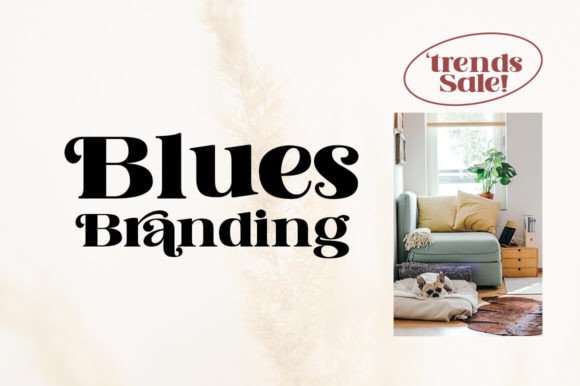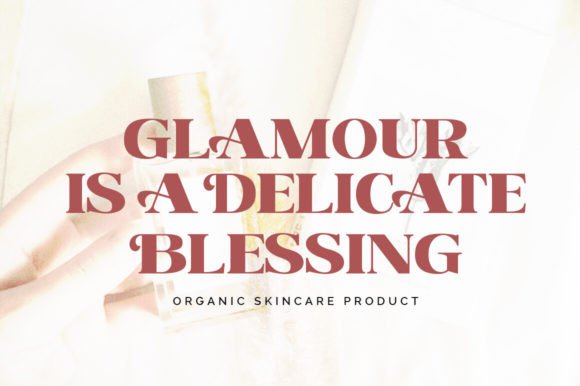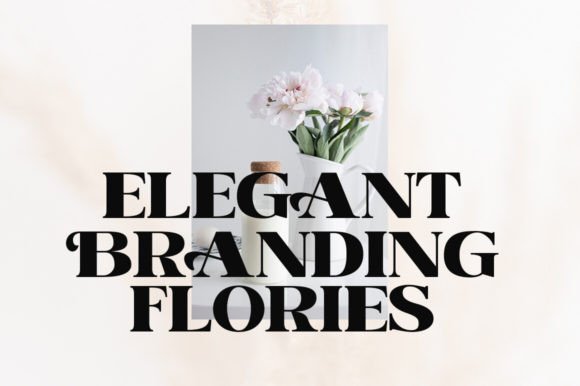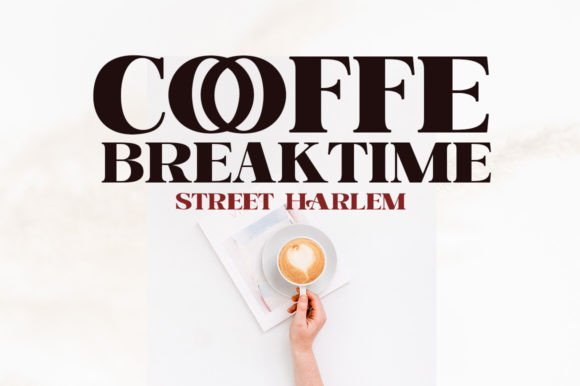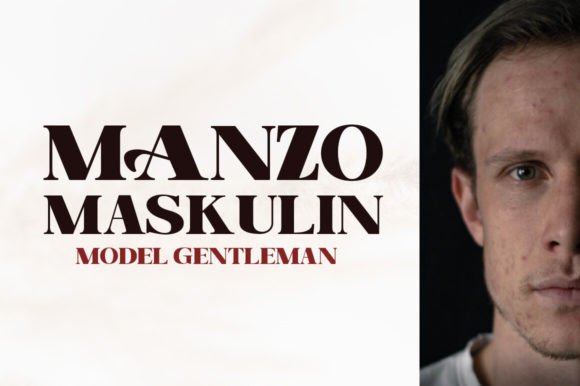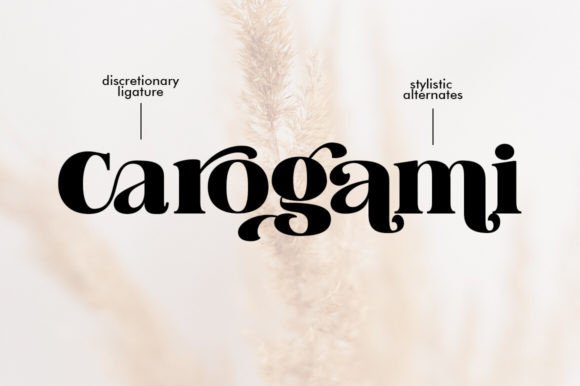
Asteru Font: Elevate Your Designs with Elegance and Sophistication
Asteru Font is a stunning serif font that has taken the design world by storm. Its beautiful and elegant appearance makes it an ideal choice for a wide range of projects, from branding and wedding invitations to greeting cards, posters, and more. In this article, we’ll dive into the world of Asteru Font and explore its features, benefits, and uses.
What is Asteru Font?
Asteru Font is a carefully crafted serif font that exudes elegance and sophistication. Its classic design makes it perfect for projects that require a touch of refinement and luxury. Whether you’re a designer, crafty DIY enthusiast, or simply someone who appreciates beautiful typography, Asteru Font is sure to impress.
Key Features of Asteru Font
- Elegant Serif Design: Asteru Font boasts a classic serif design that adds a touch of sophistication to any project.
- Versatile: This font is suitable for a wide range of projects, from branding and advertising to wedding invitations and greeting cards.
- Highly Readable: Asteru Font is designed to be highly readable, making it perfect for body text, headings, and titles.
- Scalable: This font is optimized for use at various sizes, ensuring that it looks great whether you’re using it for a tiny favicon or a massive billboard.
Uses of Asteru Font
Asteru Font is an incredibly versatile font that can be used in a variety of projects, including:
- Branding: Create a lasting impression with Asteru Font, perfect for logos, business cards, and letterheads.
- Wedding Invitations: Add a touch of elegance to your wedding invitations, save-the-dates, and thank-you cards.
- Greeting Cards: Create beautiful greeting cards for special occasions, such as birthdays, holidays, and anniversaries.
- Posters: Make a statement with Asteru Font on your posters, flyers, and brochures.
- Blog Headers: Elevate your blog with Asteru Font, perfect for headers, titles, and section dividers.
- Logos: Create a professional and elegant logo with Asteru Font.
- Fashion and Apparel: Use Asteru Font on fashion designs, such as t-shirts, hoodies, and tote bags.
- Letter Stationery: Add a touch of sophistication to your letter stationery, including notecards, journals, and planners.
Benefits of Using Asteru Font
By incorporating Asteru Font into your designs, you’ll enjoy several benefits, including:
- Unique and Memorable Designs: Asteru Font helps you create unique and memorable designs that stand out from the crowd.
- Elegance and Sophistication: This font adds a touch of elegance and sophistication to any project, making it perfect for high-end brands and luxury products.
- Improved Readability: Asteru Font is designed to be highly readable, ensuring that your message is communicated clearly and effectively.
- Flexibility: This font is suitable for a wide range of projects, making it a valuable addition to your font library.
Asteru Font is a beautiful and elegant serif font that’s perfect for designers, crafters, and anyone looking to elevate their designs. Its versatility, readability, and sophistication make it an ideal choice for a wide range of projects. Whether you’re creating branding materials, wedding invitations, or greeting cards, Asteru Font is sure to impress. So why wait? Download Asteru Font today and take your designs to the next level!